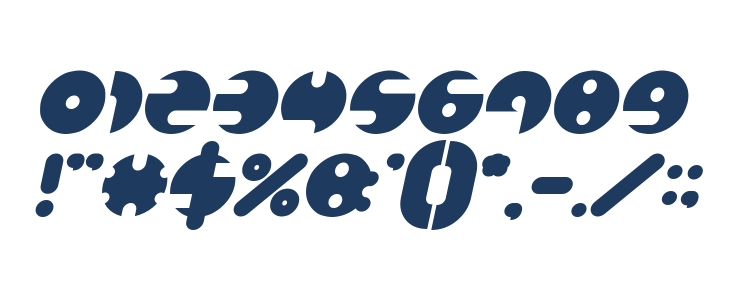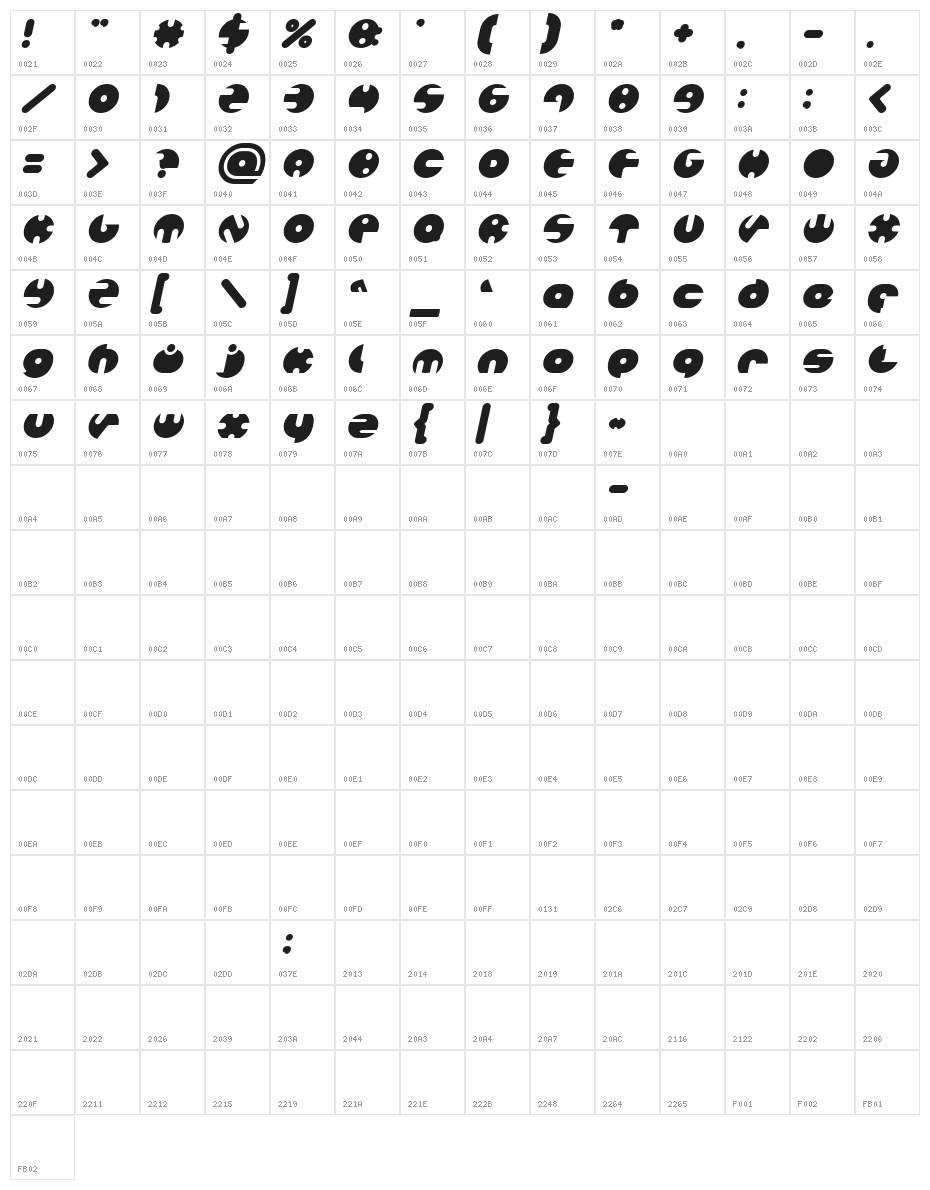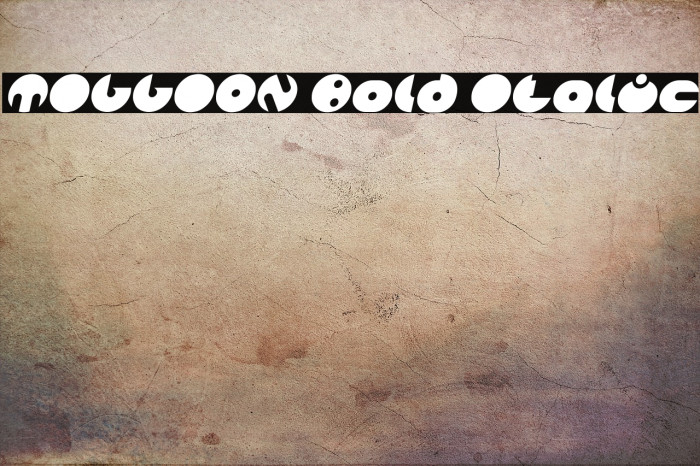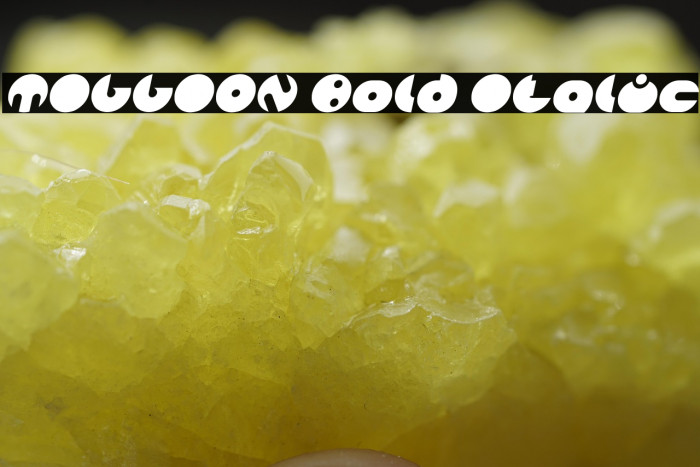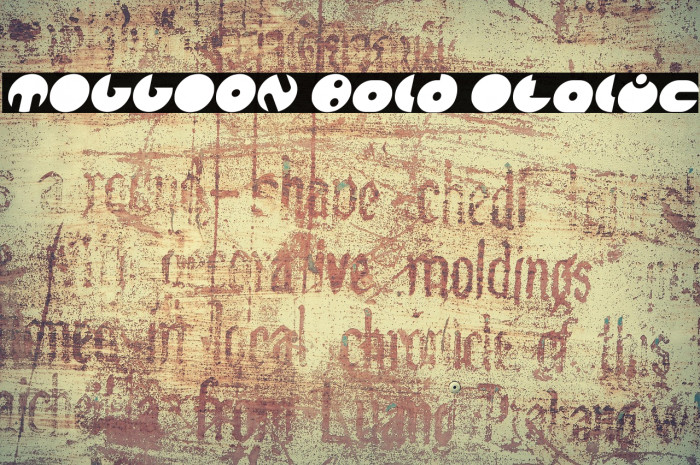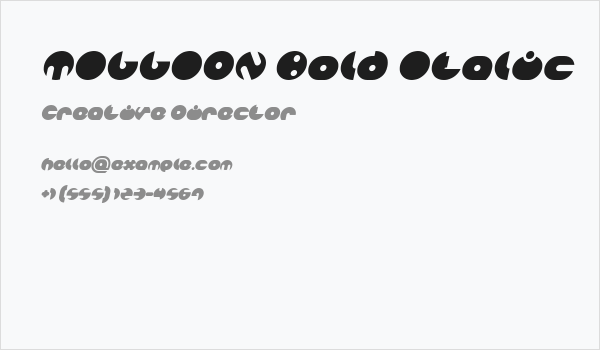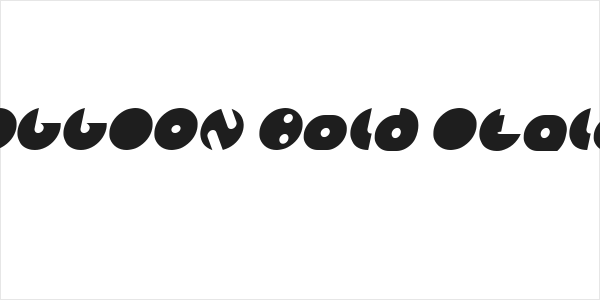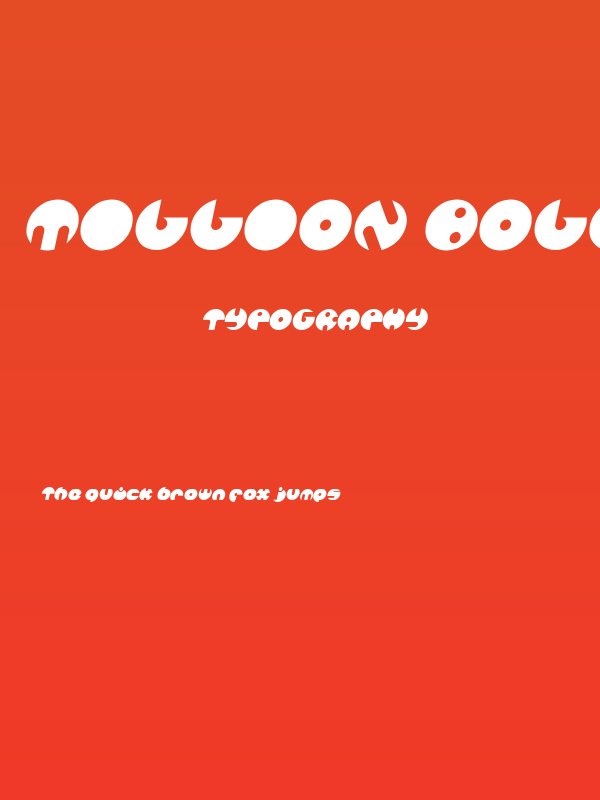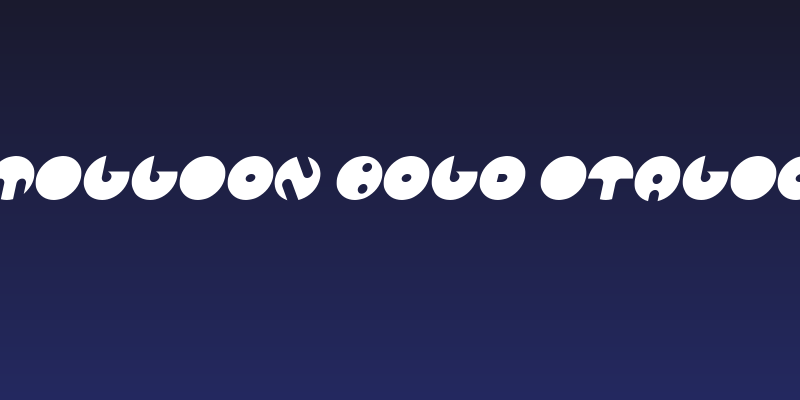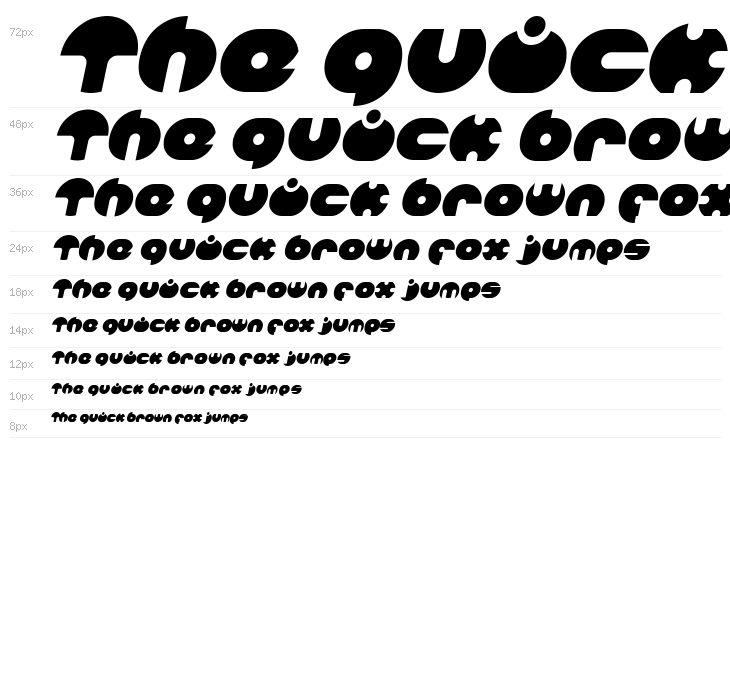
MILLION Bold Italic Font
MILLION Bold Italic Description
This font features a bold and italic style with a highly decorative and modern appearance. The characters are uniquely designed with thick, rounded strokes and geometric shapes, creating a playful and eye-catching look. The uppercase and lowercase letters maintain a consistent style, with some characters incorporating circular cutouts or unique angles. Numbers and special characters follow the same bold and rounded theme, ensuring uniformity across the entire typeface. The font's distinctiveness makes it ideal for creative and artistic projects.
| Proposed Projects | Ideal for branding, posters, album covers, and any project requiring a bold, artistic touch. |